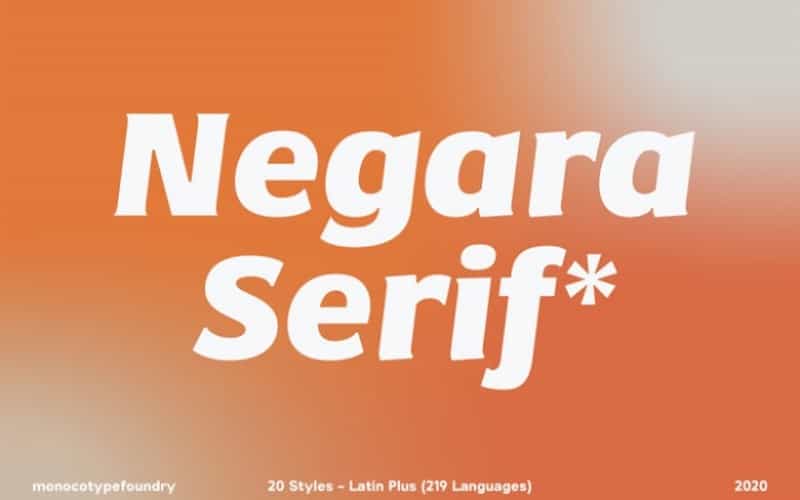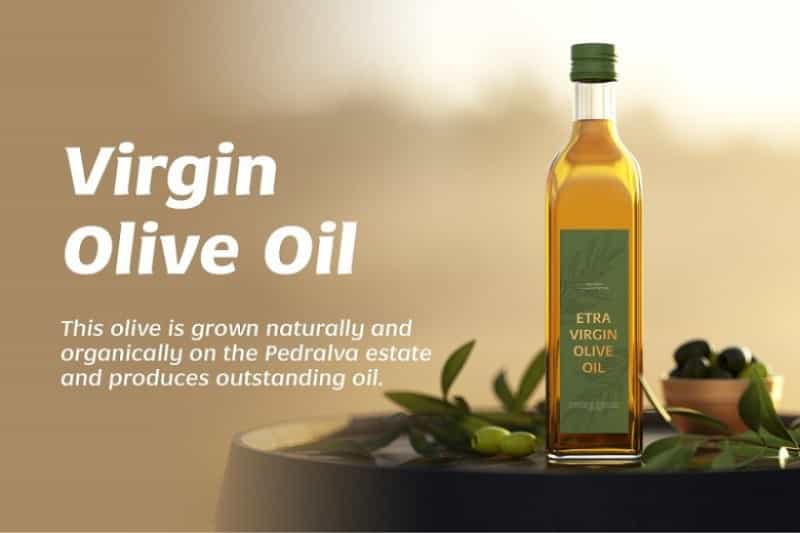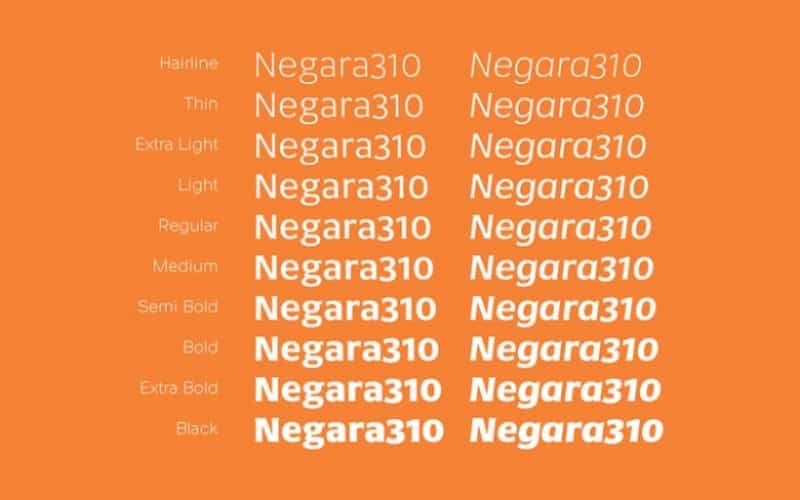
Negara Serif is a typeface with an elegant and classic look made for headlines and short paragraph usage. The font is part of Latin Plus that have include 219 languages, so it can be used in a wide countries, and in addition to latin there is Cyrillic support for Negara Serif.